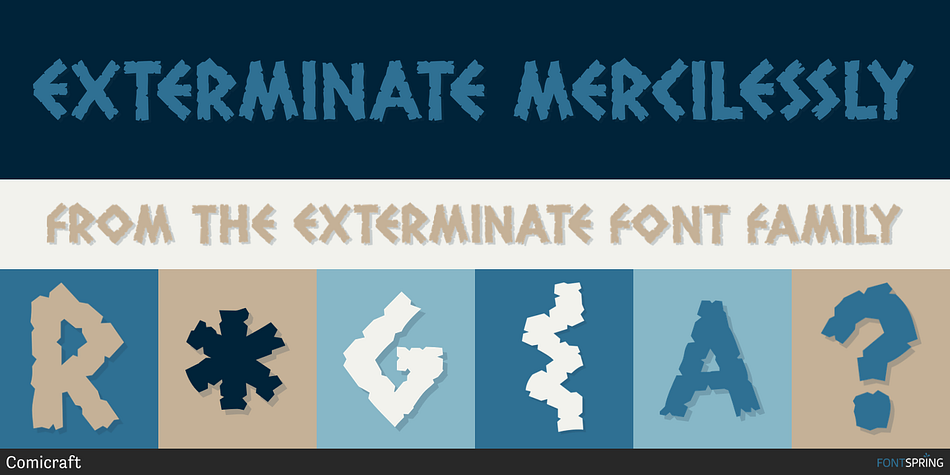
EXTERMINATE MERCILESSLY
Designed by John Roshell and Richard Starkings, Exterminate is a comic font family. This typeface has five styles and was published by Comicraft.
THIS FONT IS ONLY THE BEGINNING. WE WILL PREPARE MORE. WE WILL GROW STRONGER. WHEN THE TIME IS RIGHT WE WILL EMERGE AND TAKE OUR RIGHTFUL PLACE AS THE SUPREME FONT HOUSE IN THE UNIVERSE!  EXTERMINATE! EXTERMINATE!